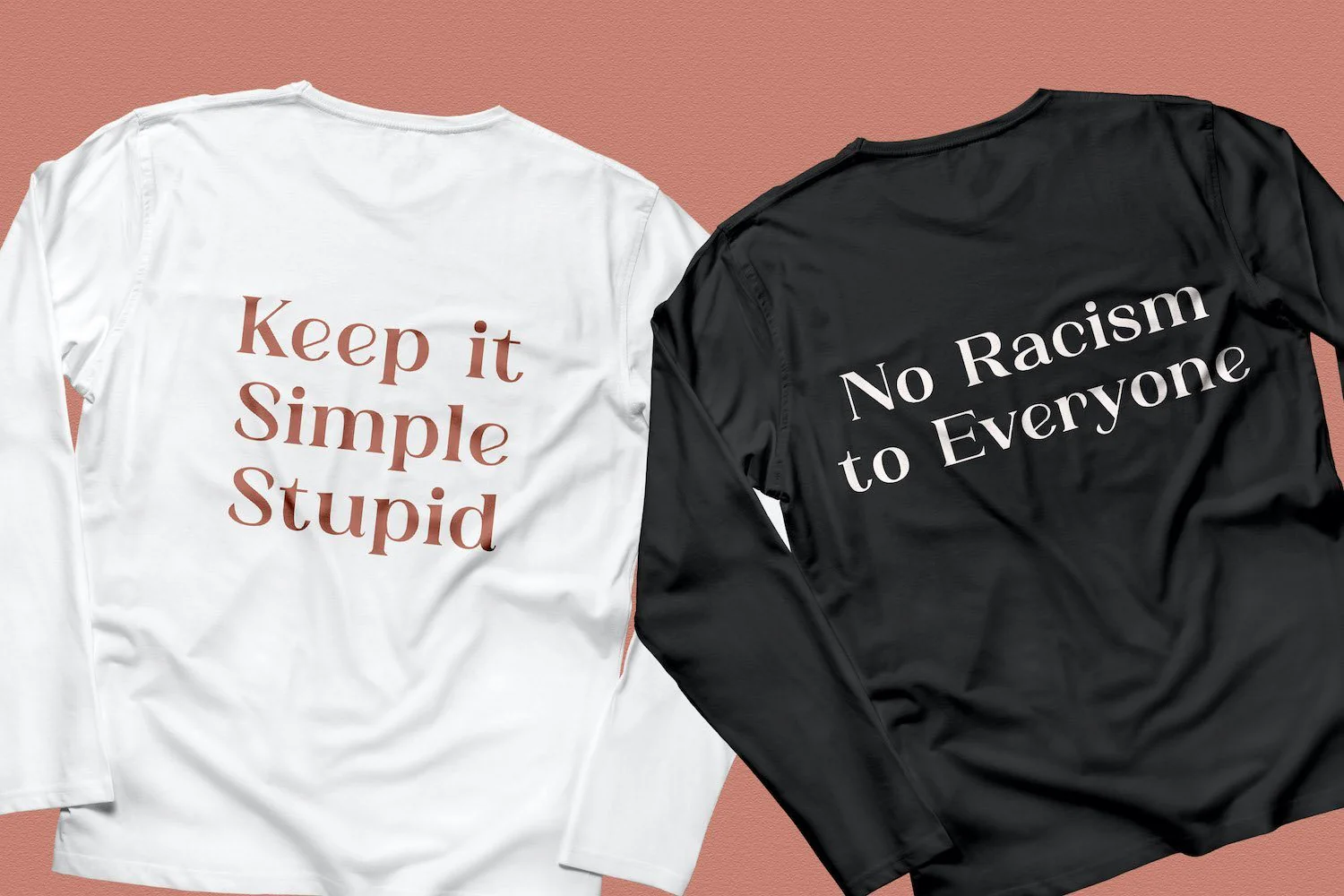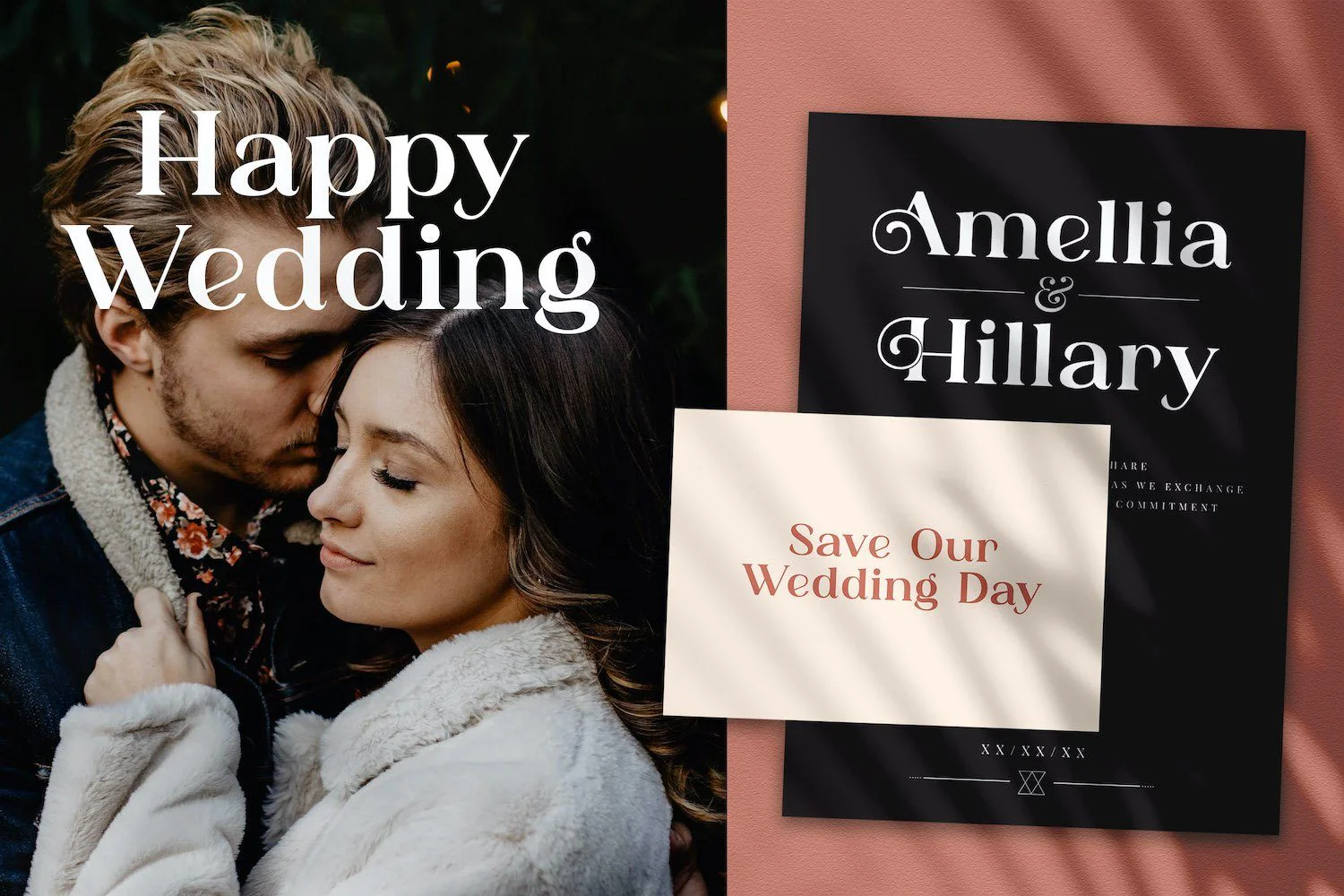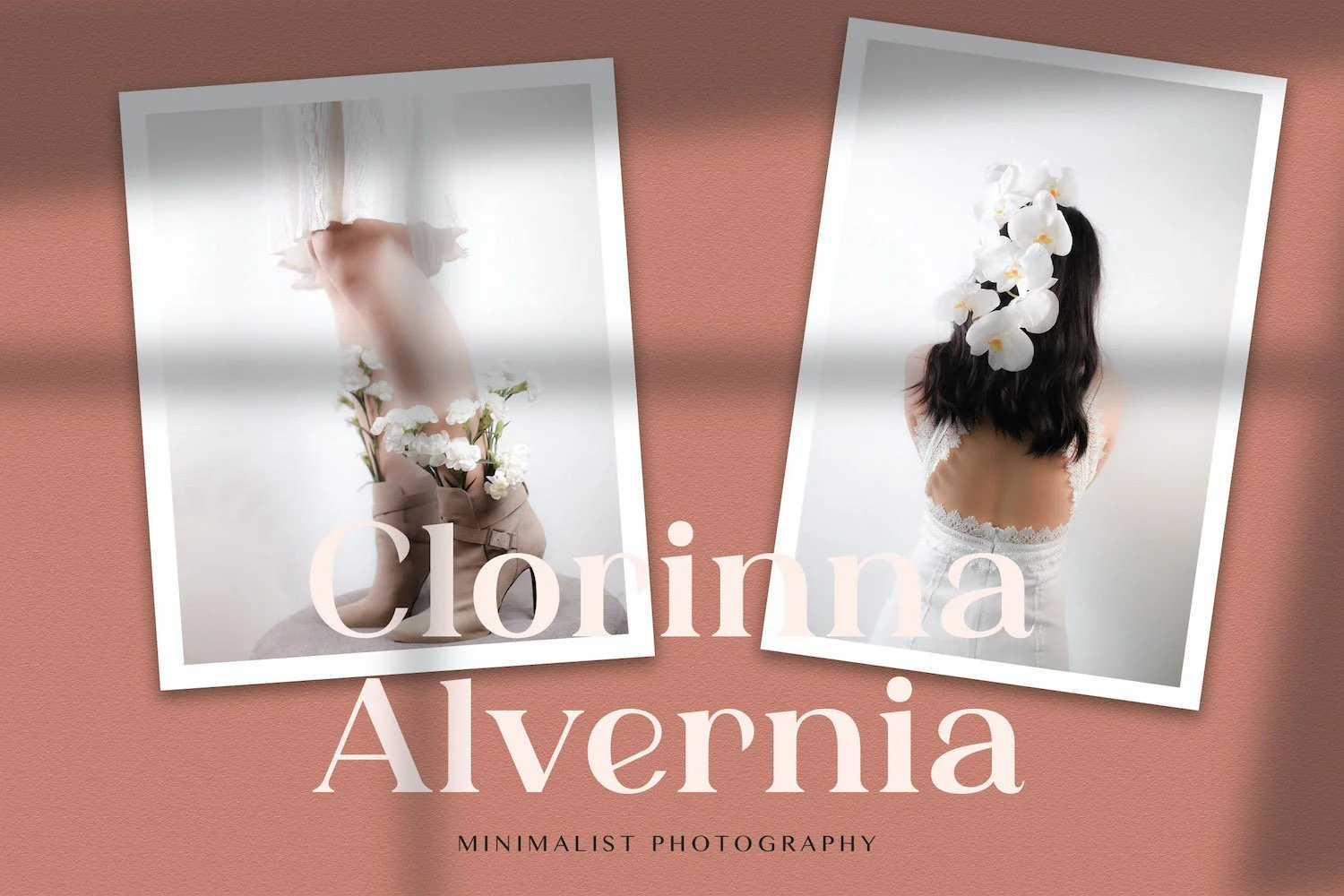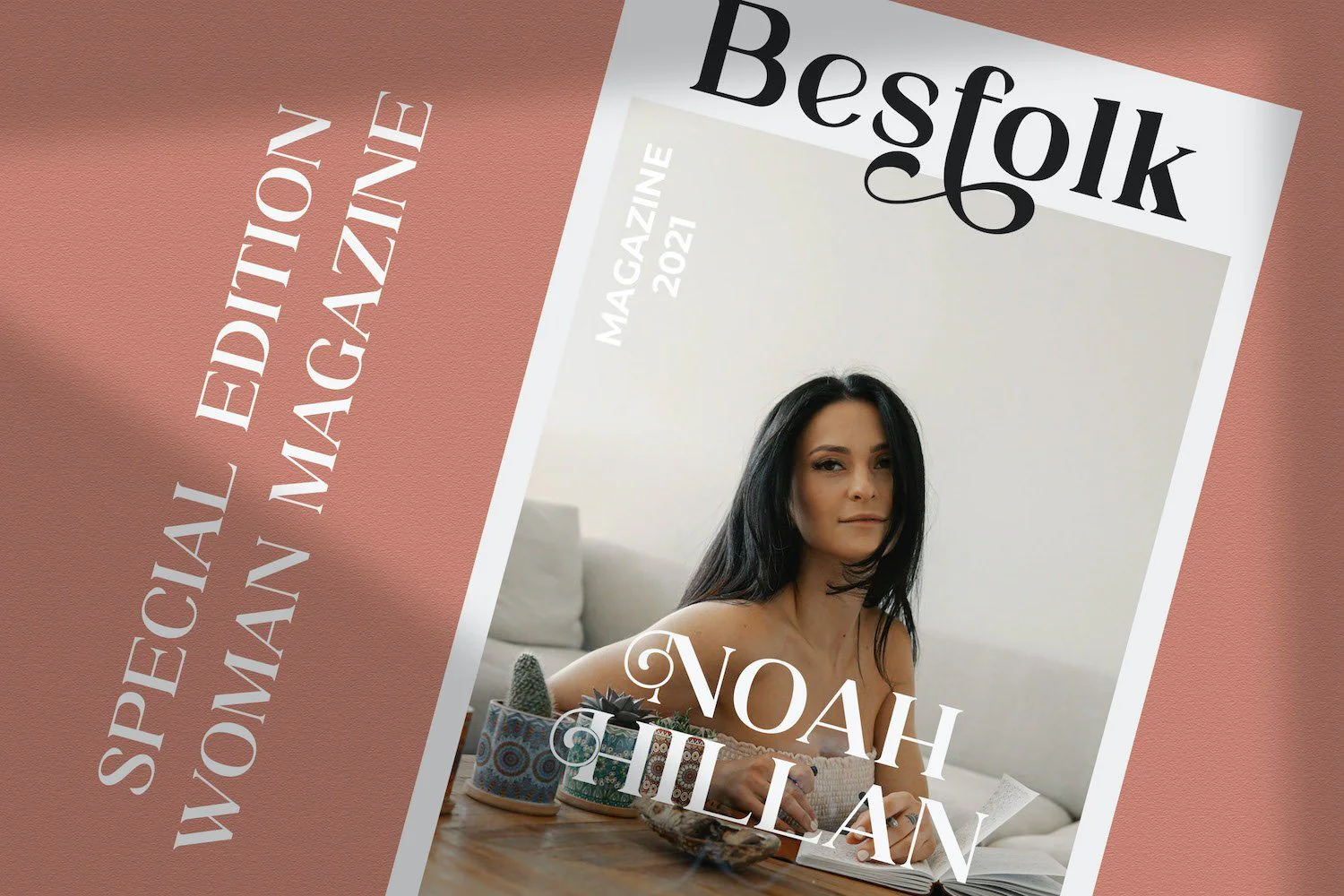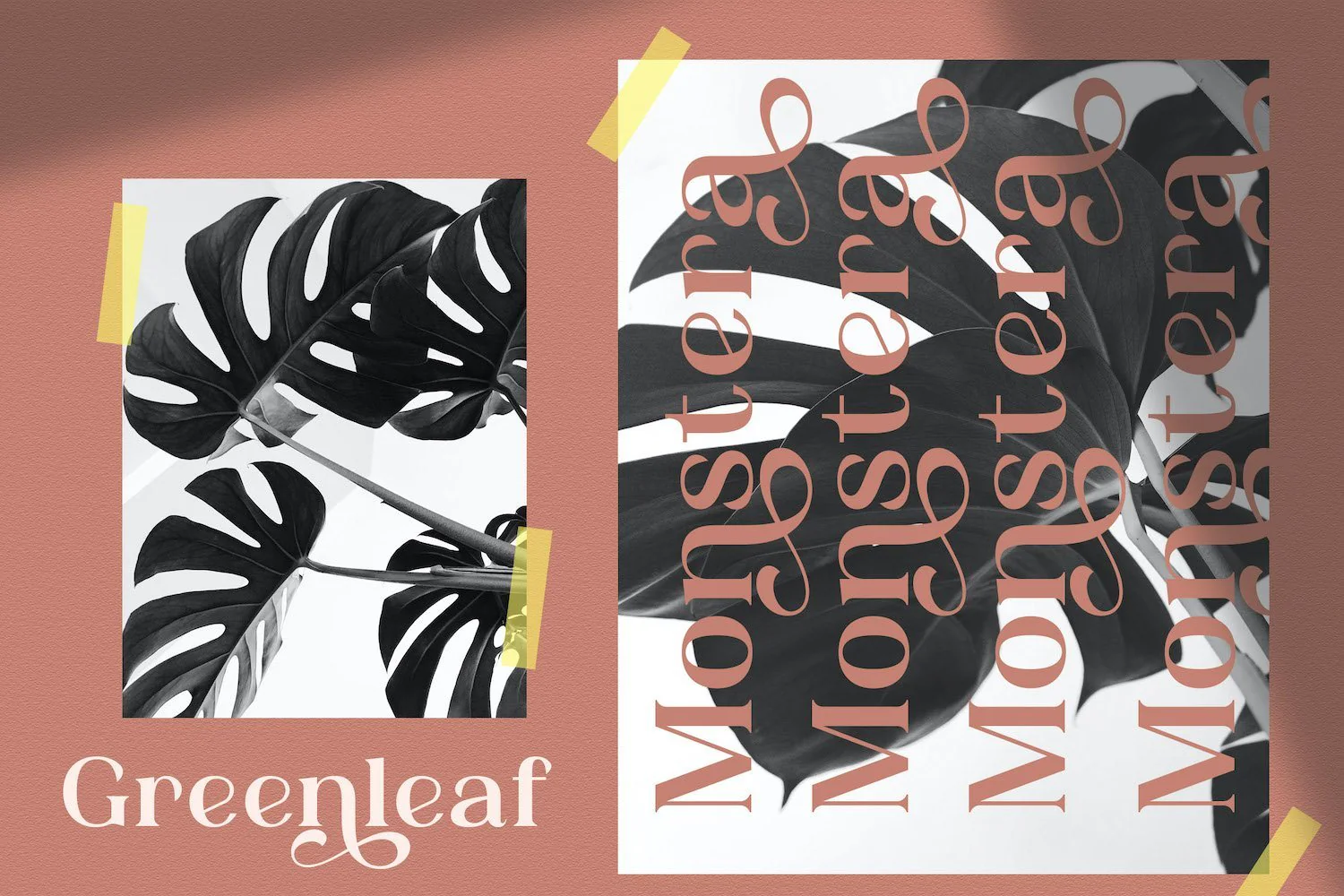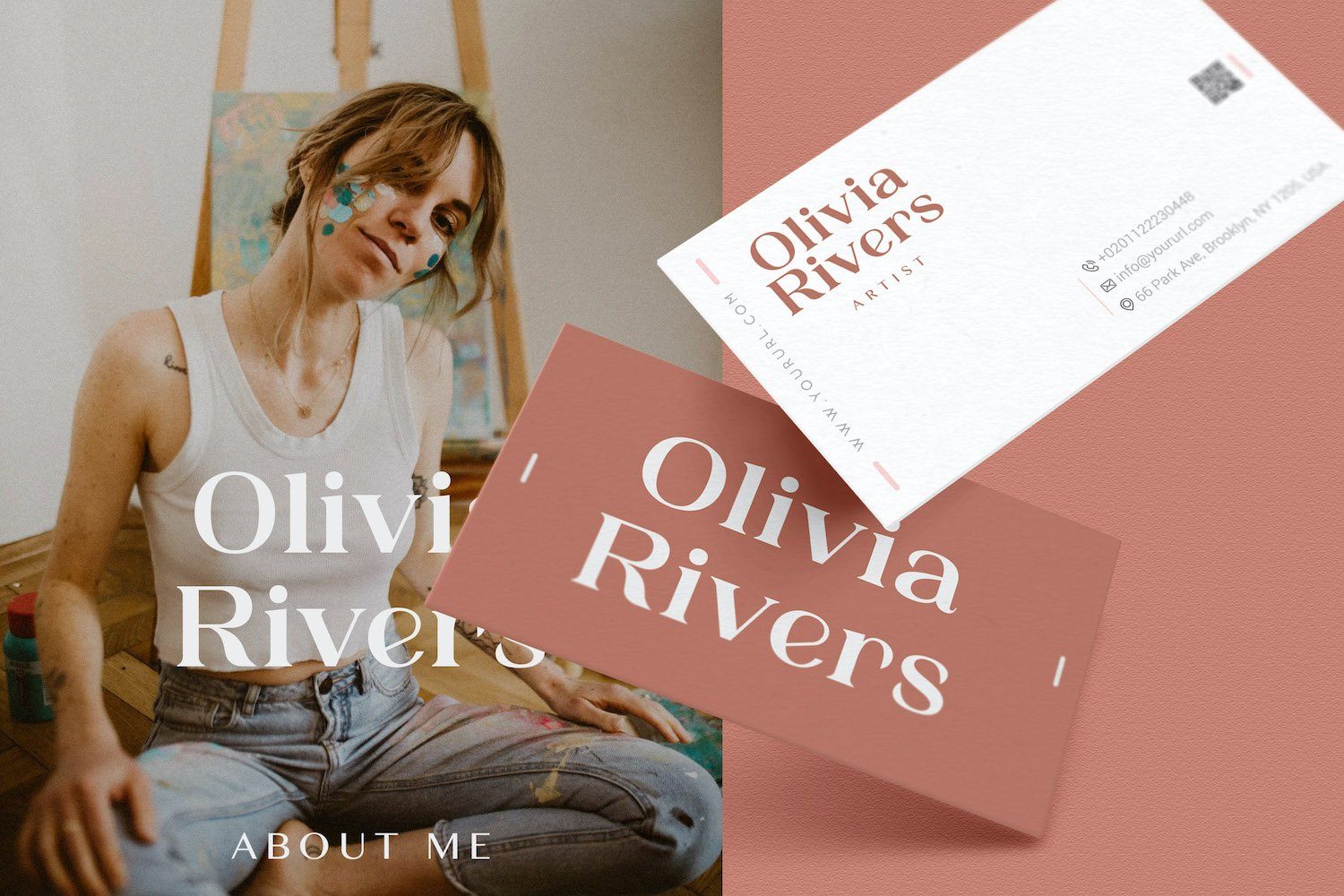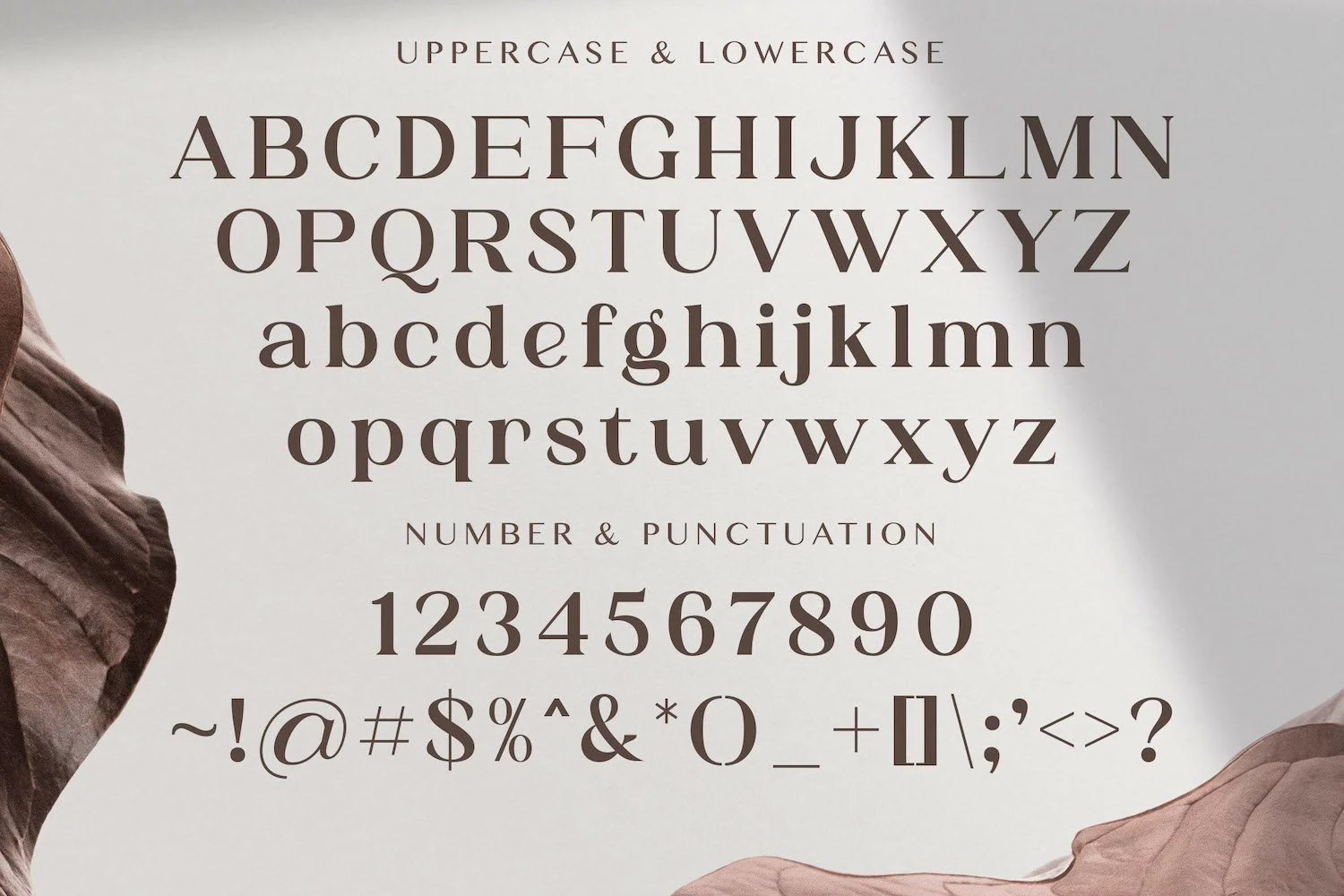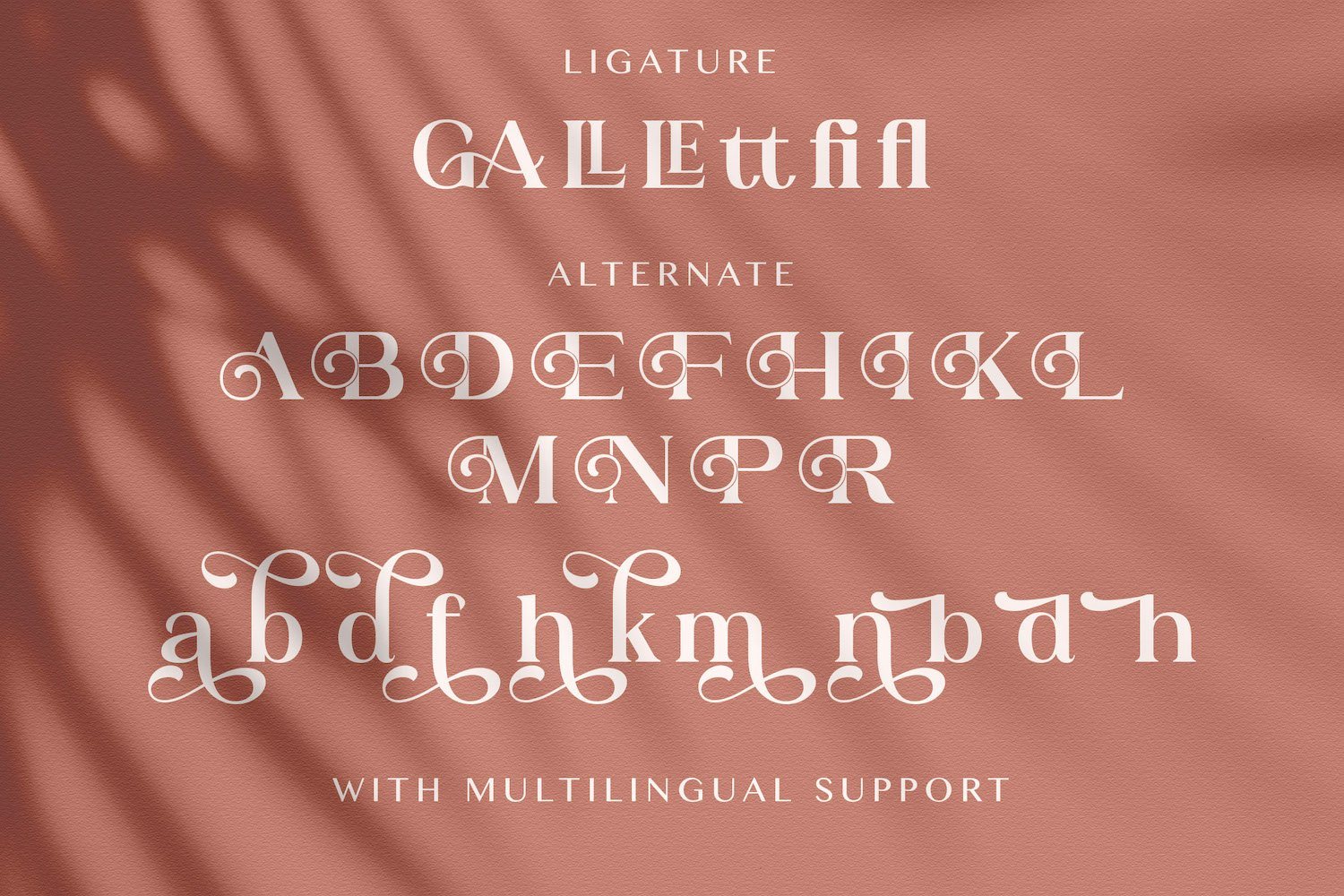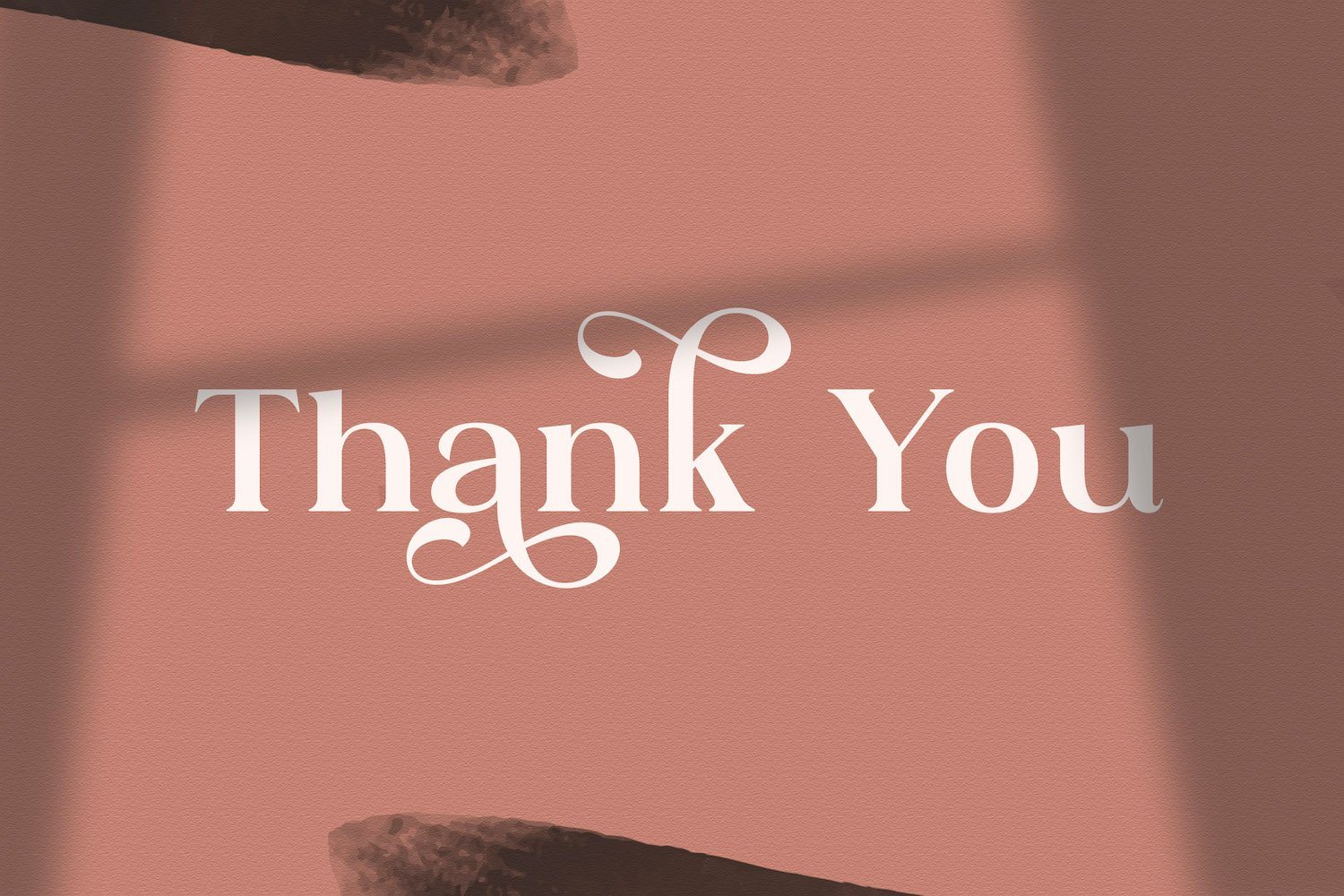
Adibafih - Casual Serif Font
Introducing Adibafih - Casual Serif Font
Adibafih is an authentic and playful serif font. It can easily be matched to an incredibly large set of projects, so add it to your creative ideas and notice how it makes them stand out!
Introducing Adibafih - Casual Serif Font
Adibafih is an authentic and playful serif font. It can easily be matched to an incredibly large set of projects, so add it to your creative ideas and notice how it makes them stand out!